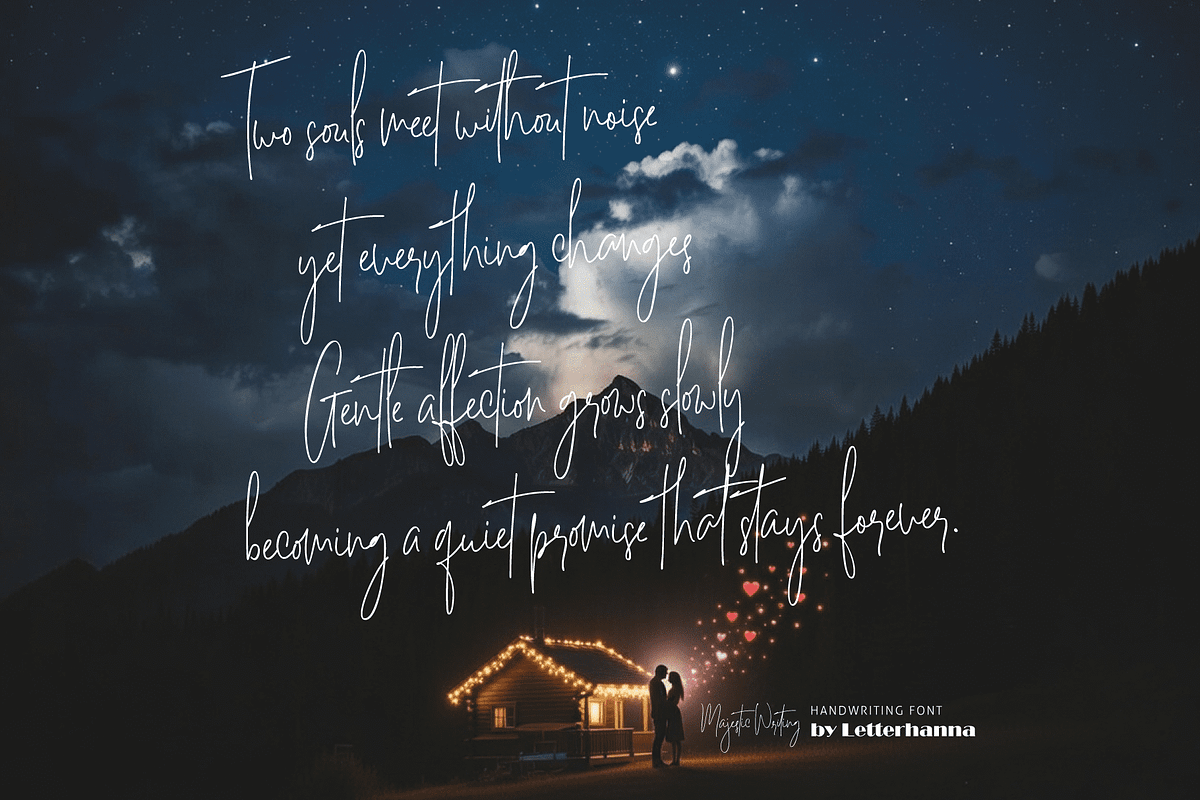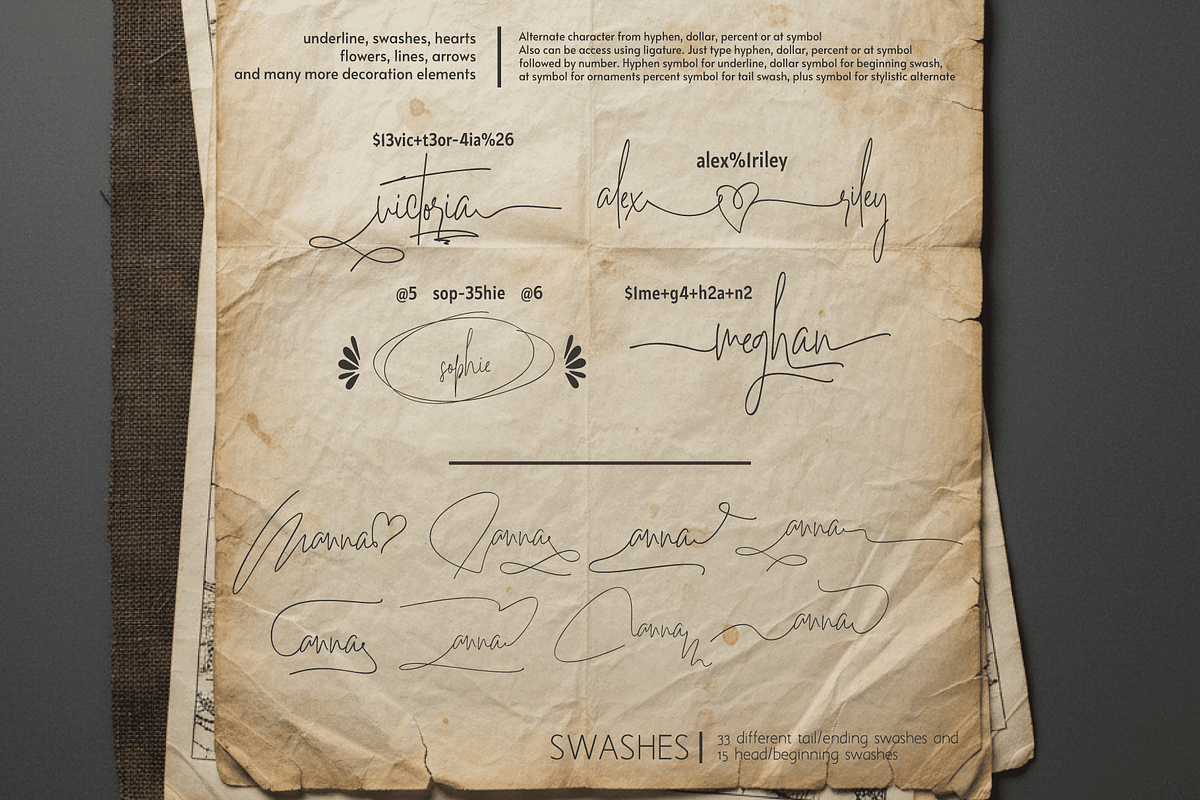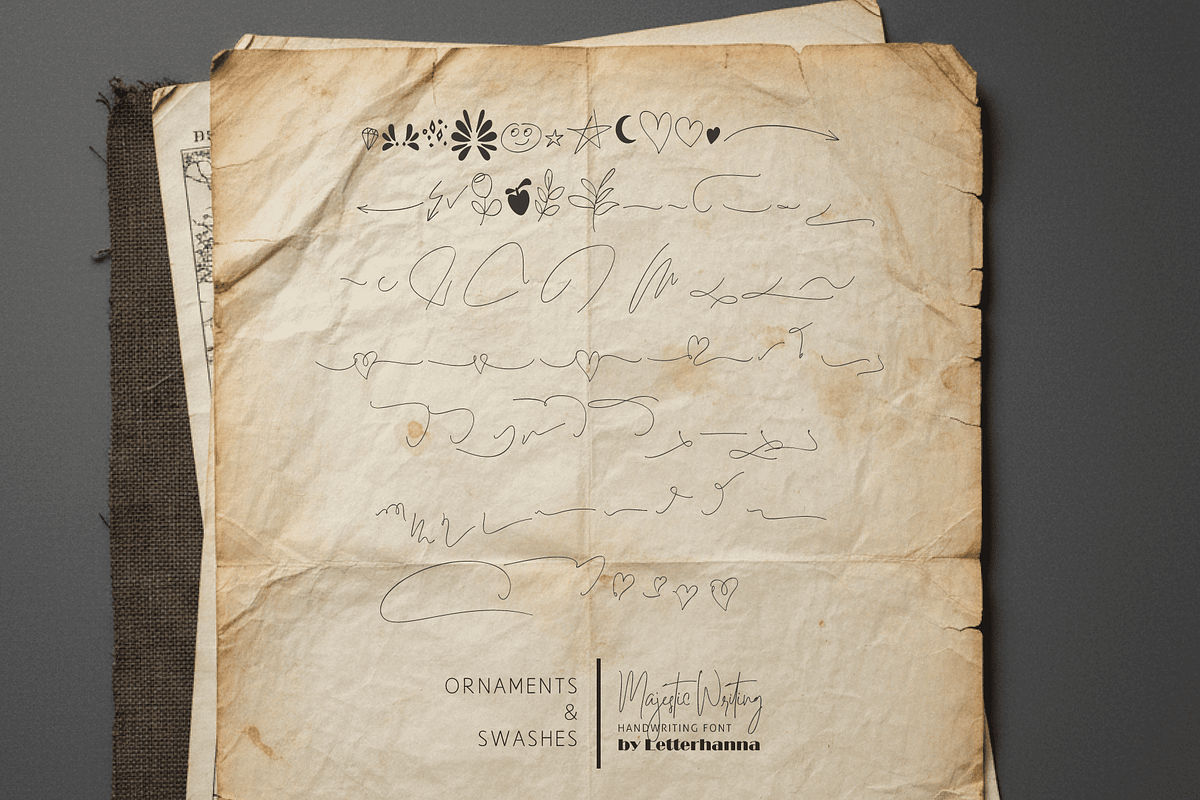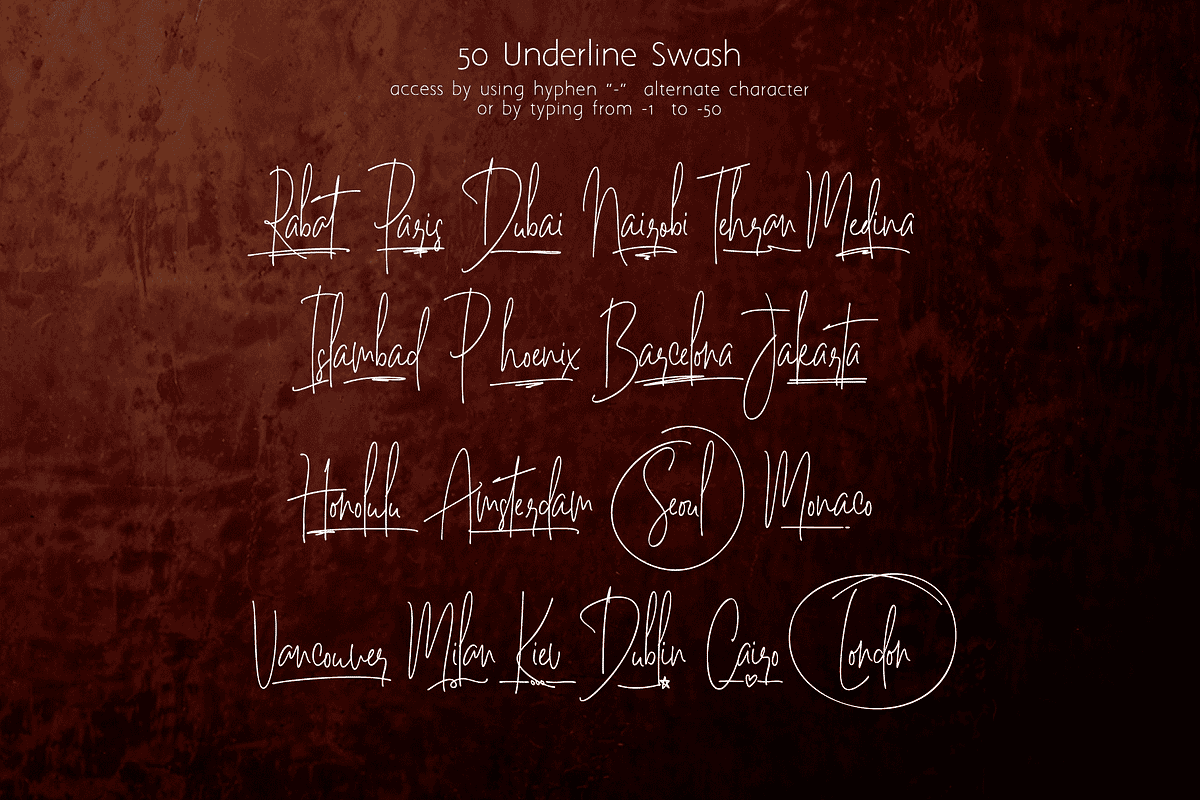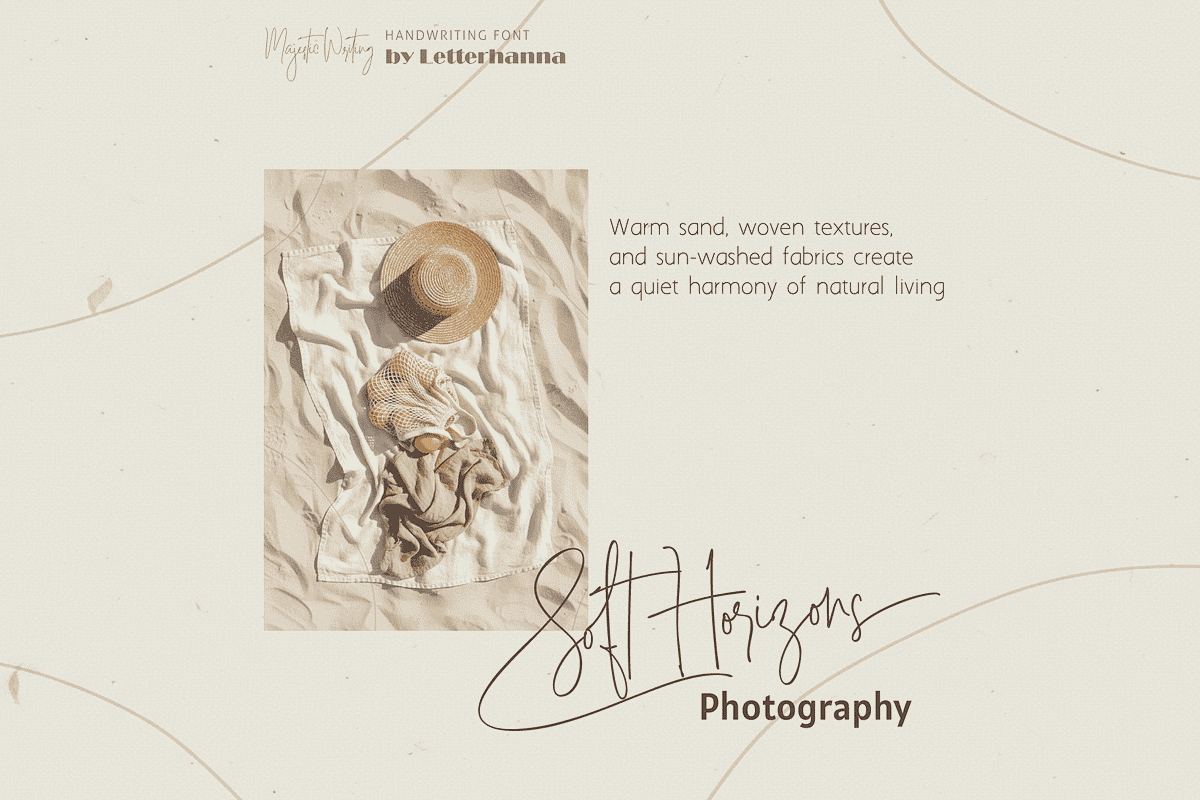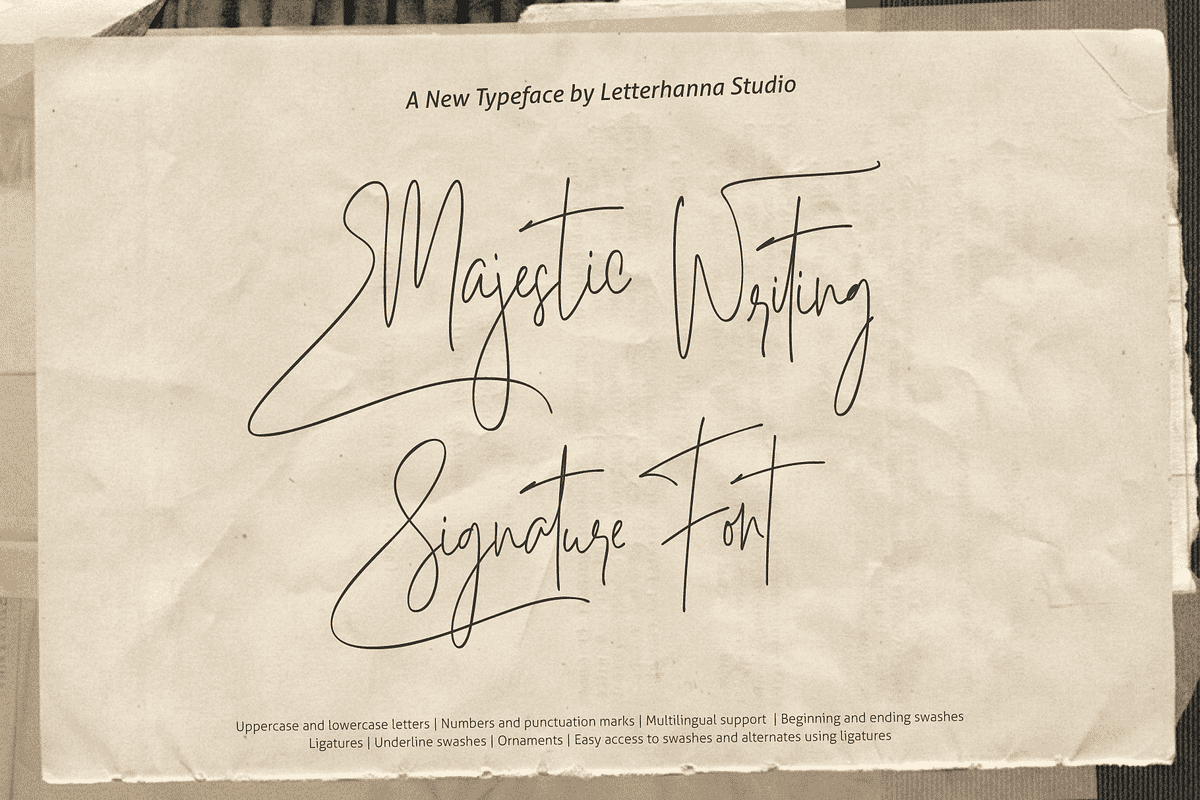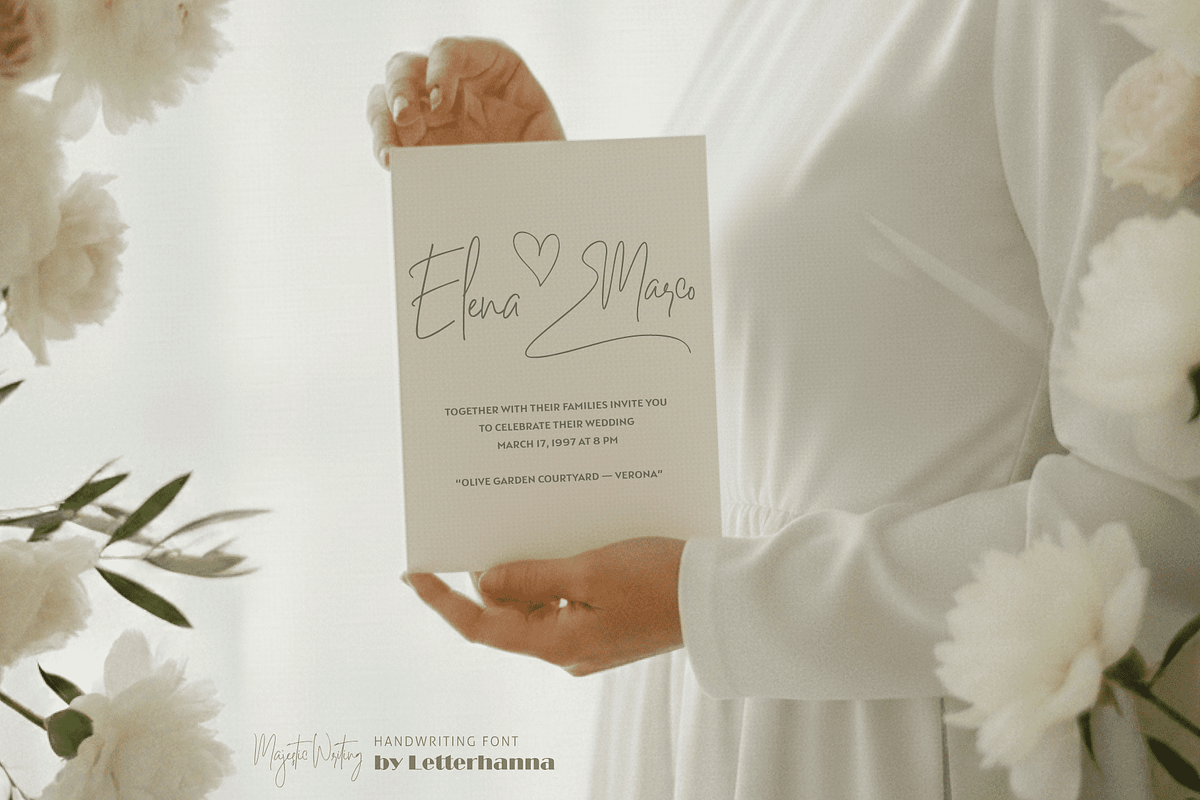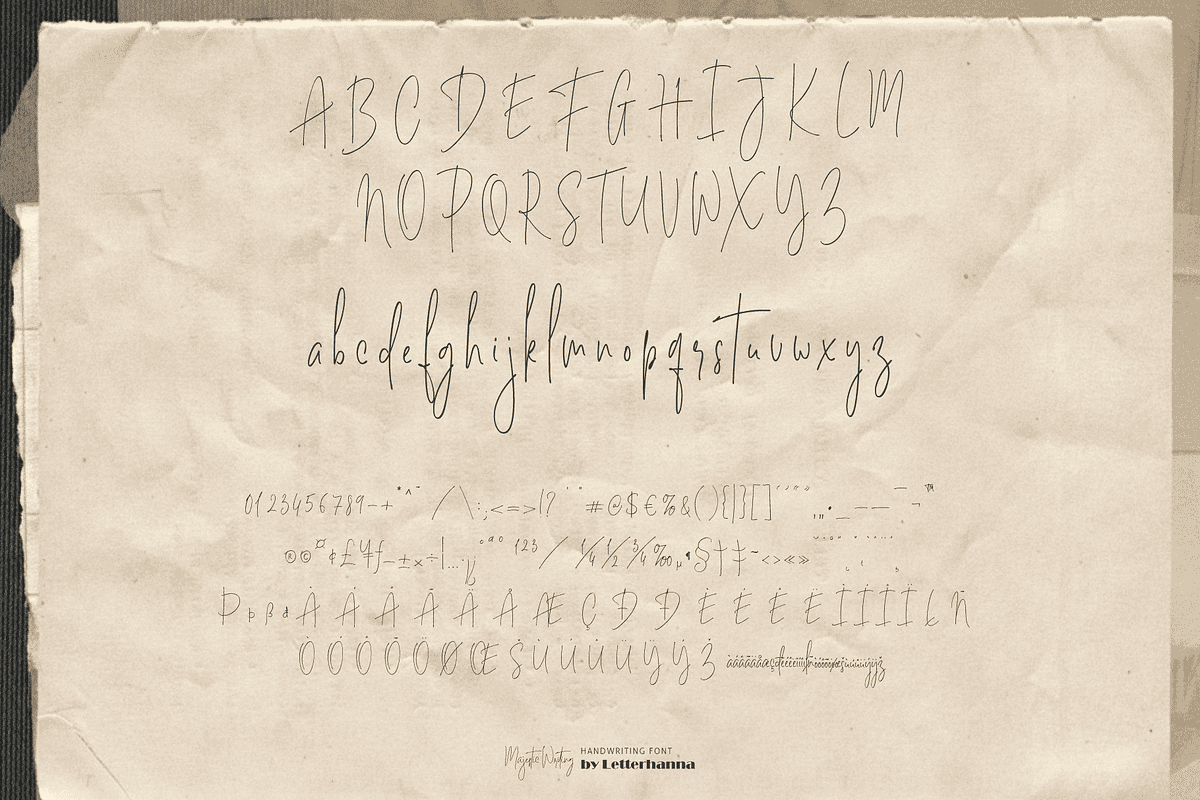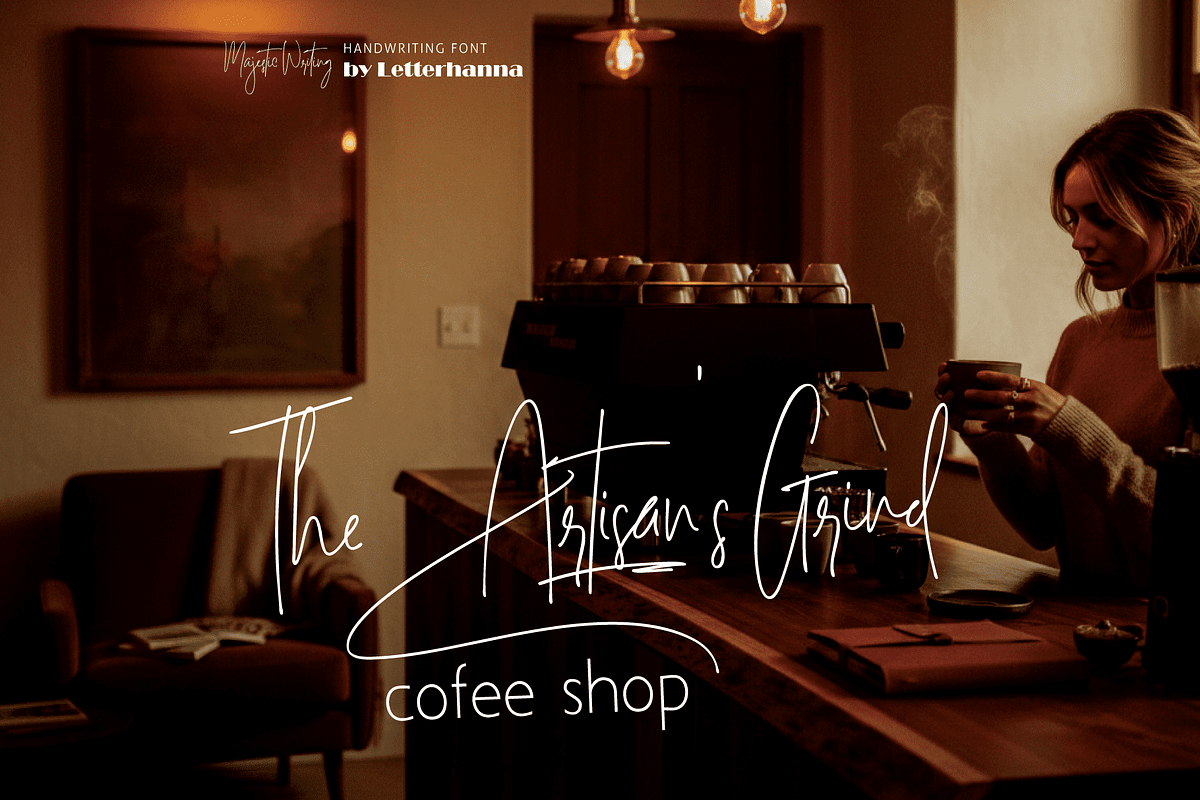
Majestic Writing Signature Font
Majestic Writing is a script typeface built around the idea of passing impressions — not perfect clarity, but remembered feeling. Certain characters intentionally blur readability; the form speaks first, the mind understands later. In visual identity, emotion often communicates faster than precision, and the eye naturally reconstructs the letterforms.
The typeface contains a complete uppercase and lowercase alphabet, numbers, punctuation, multilingual support, and fifty ligatures. It works especially well for signature-style branding, photography watermarks, wedding stationery, and logo marks based on initials.
Designed with character and individuality in mind. Majestic Writing also provides hand-drawn capitals and lowercase letters with natural stroke variation, extended punctuation, and expressive ligatures. Includes entry and exit swashes to recreate authentic handwritten movement.
Simple Ways to Unlock All the Extra Decorations
〰️ Underline swashes: type "-" followed by numbers 1–50 (example: -3, -22, -17) 🌿Intro flourish swashes: type dollar sign "💲" followed by numbers 1–15 💐Exit flourish swashes: type "%" followed by numbers 1–33 (example: %3, %15) 💎Decorative Ornaments: type "at" or email symbol followed by numbers 1–21
Font features:
🔤 Full uppercase & lowercase 🔢 Numbers and punctuation 🌍 Multilingual support 🔗 50 ligatures 🌿 Intro & exit flourishes swashes ➖ Underlines swashes ✨ Decorative elements ⚡ Fast decorative access via ligatures